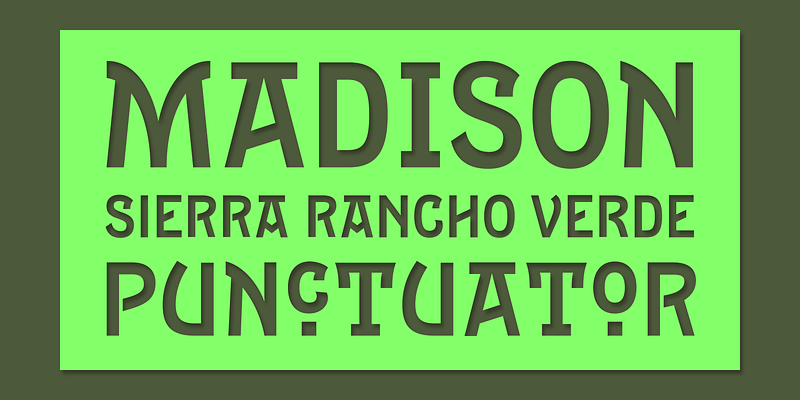
Drawn around 1880 at the Boston Type Foundry, Epitaph combined slow curves with a boxy sure-footed profile. Its noisy theatrics caught Tobias Frere-Jones’ eye, who created this digital revival. Starting with a handful of alternates from the original, he also built a complete second alphabet, offered alongside the default.